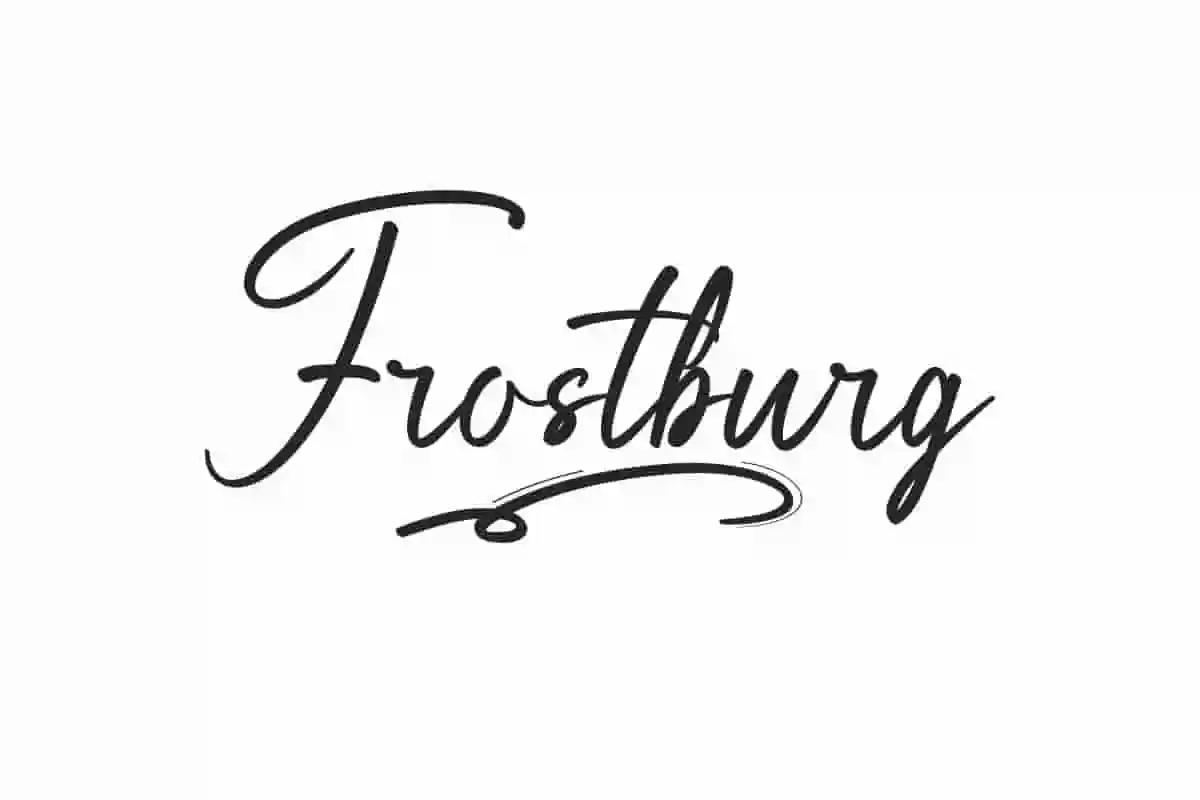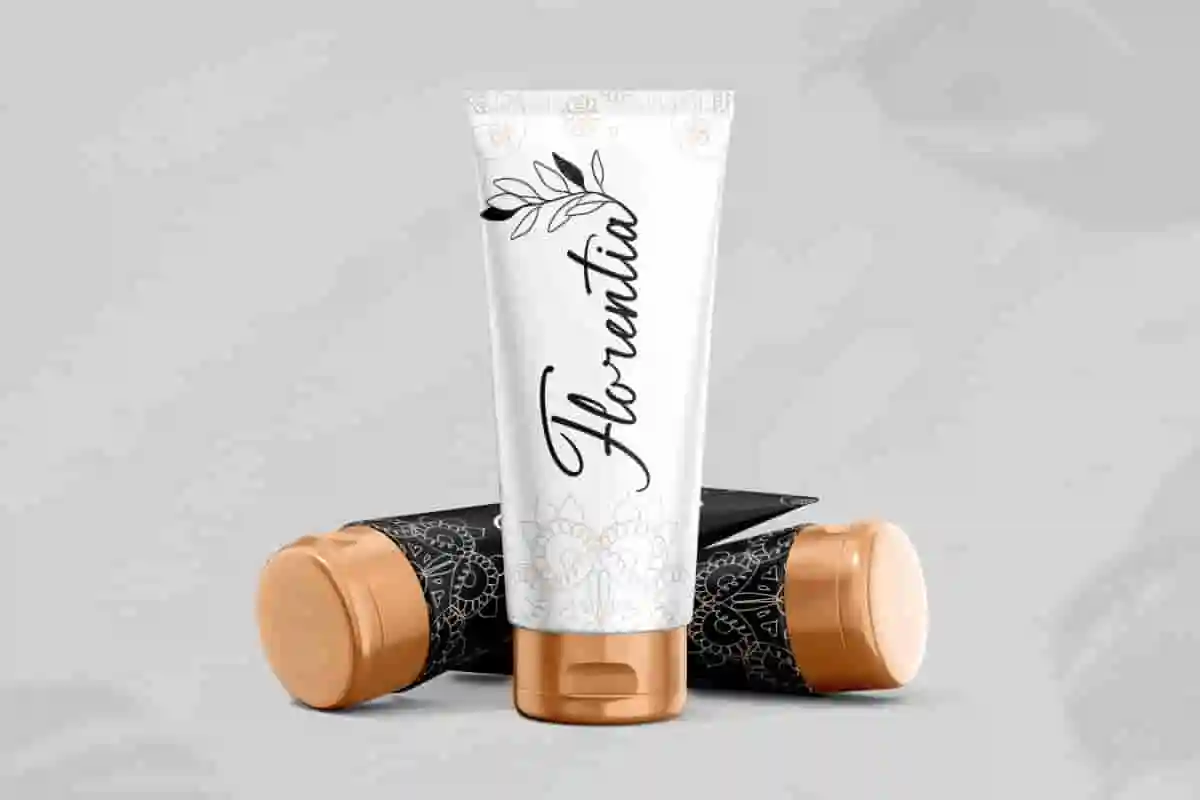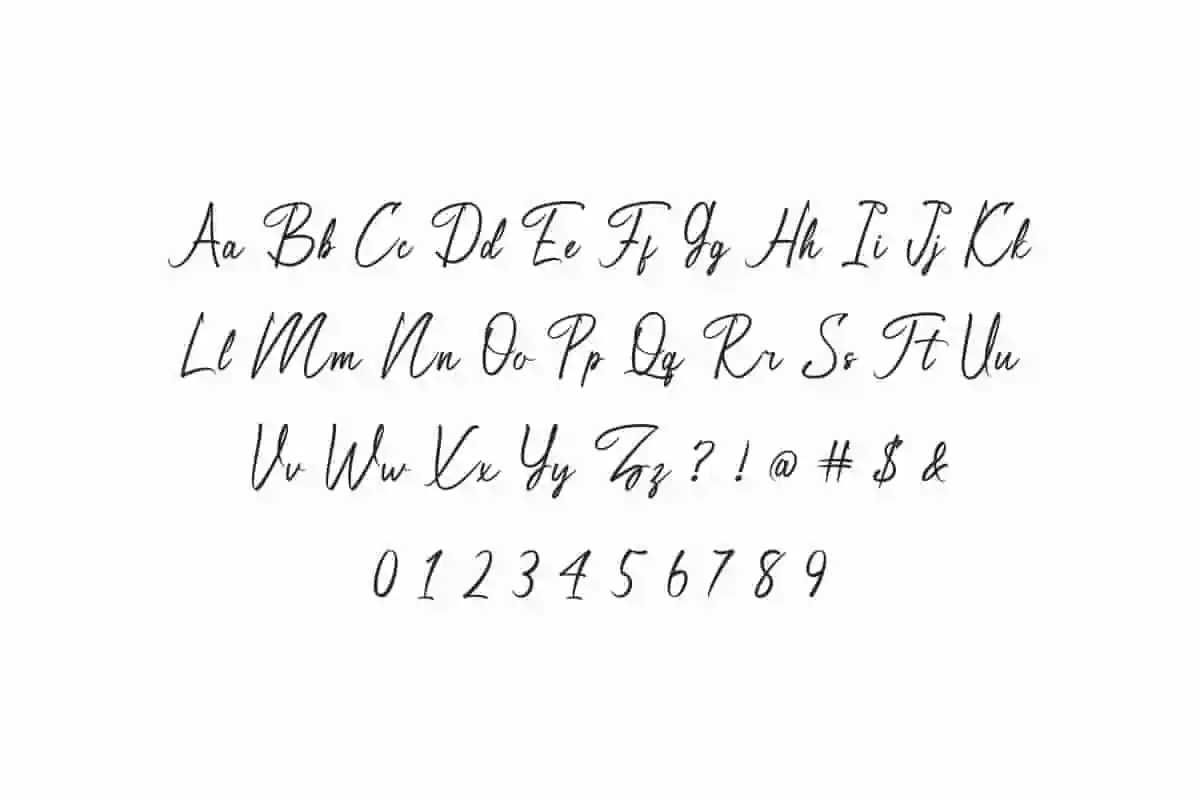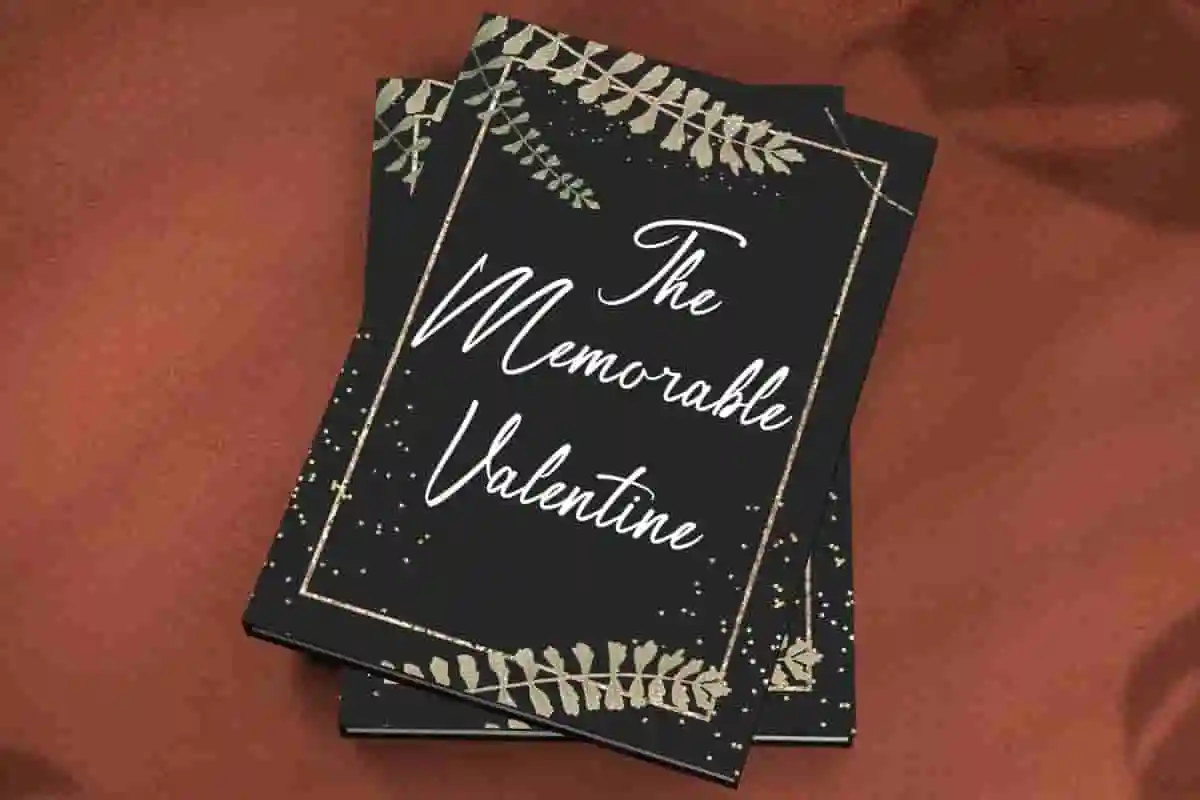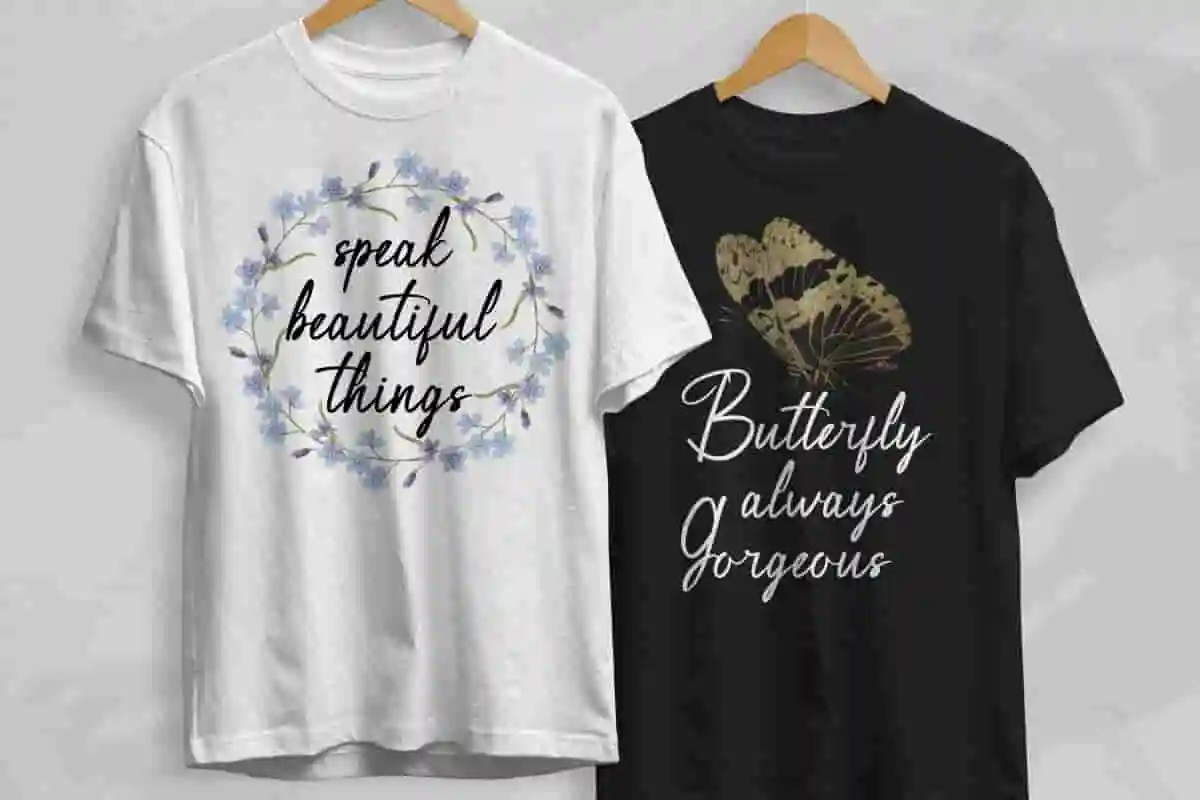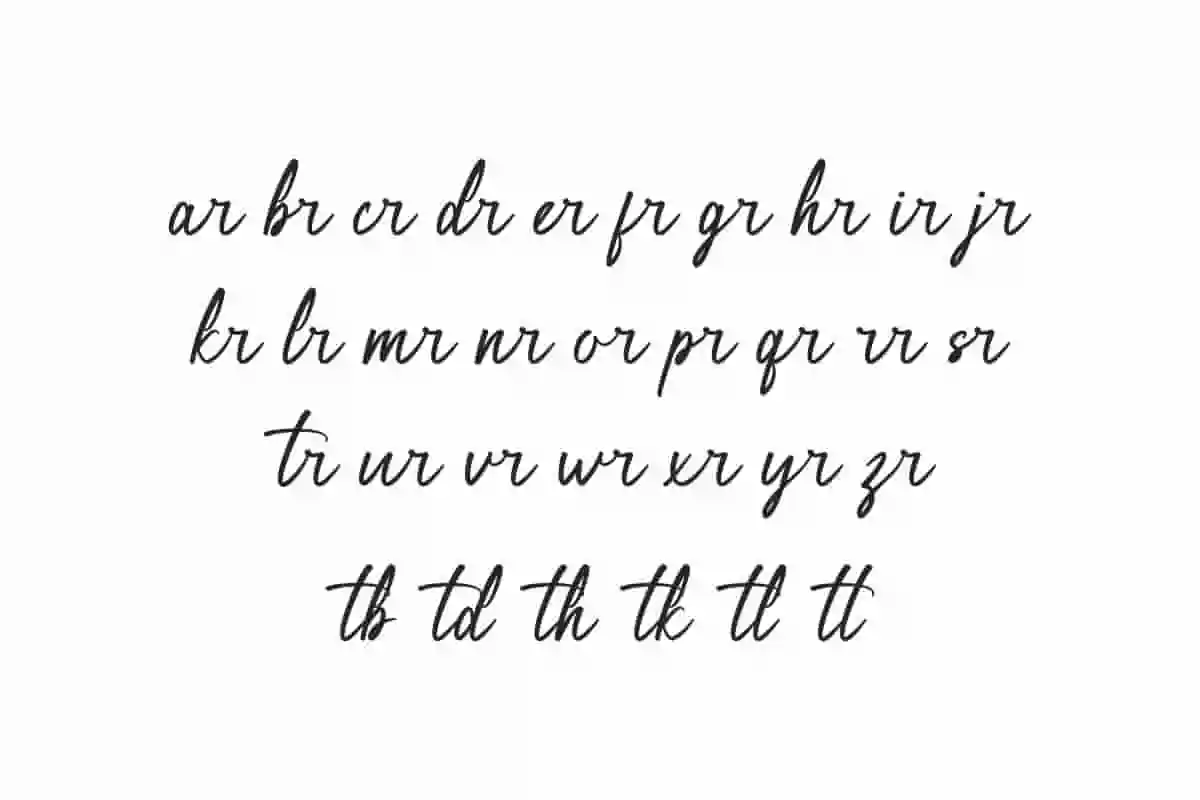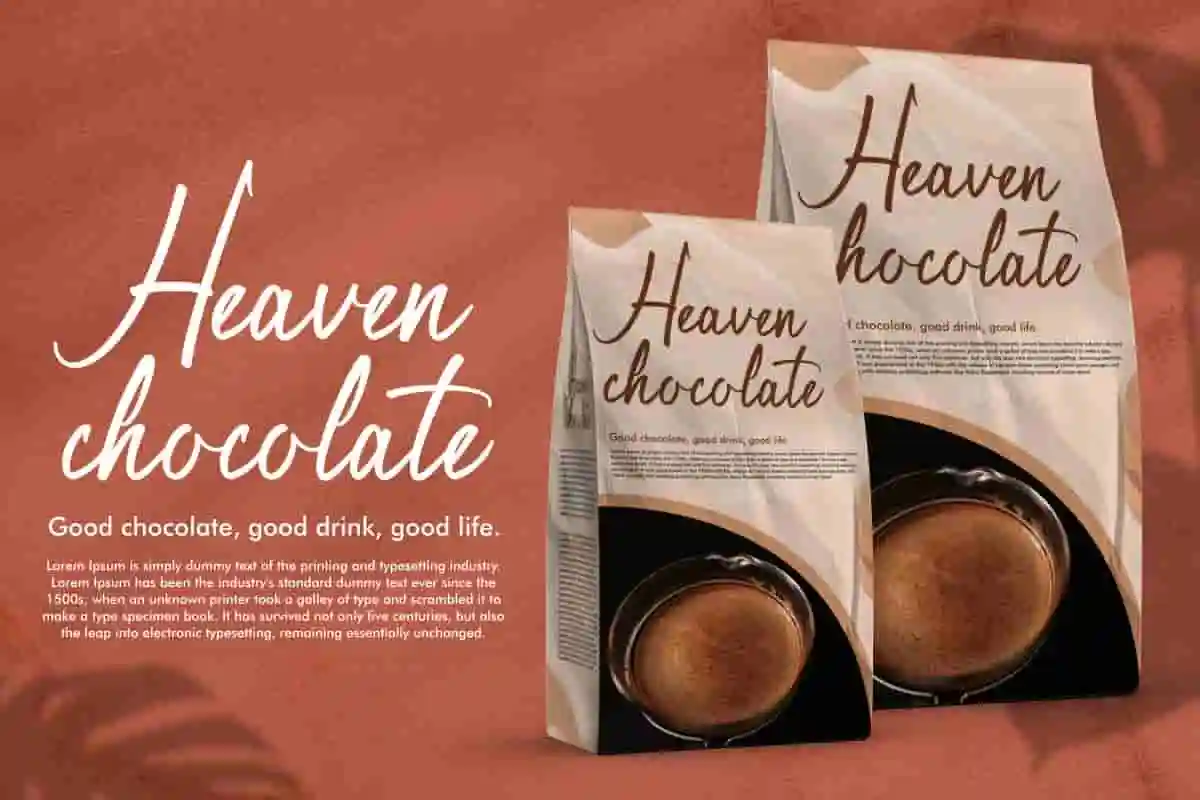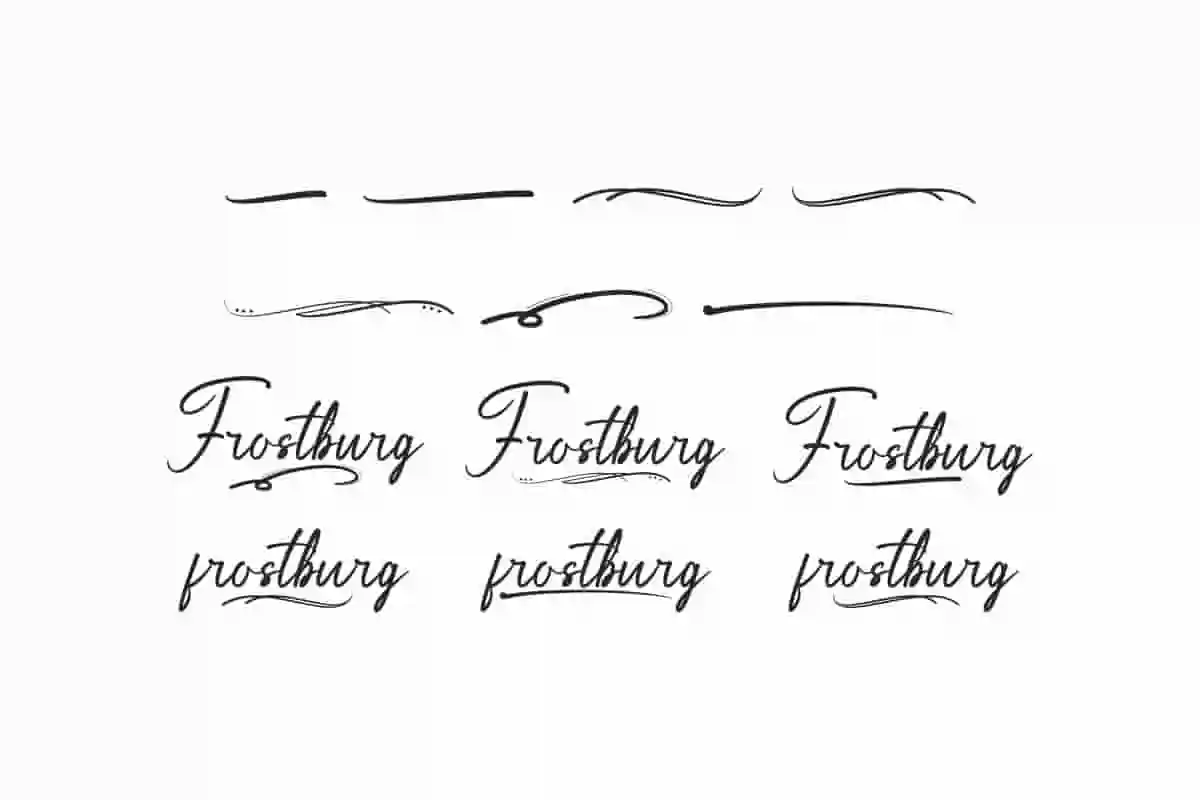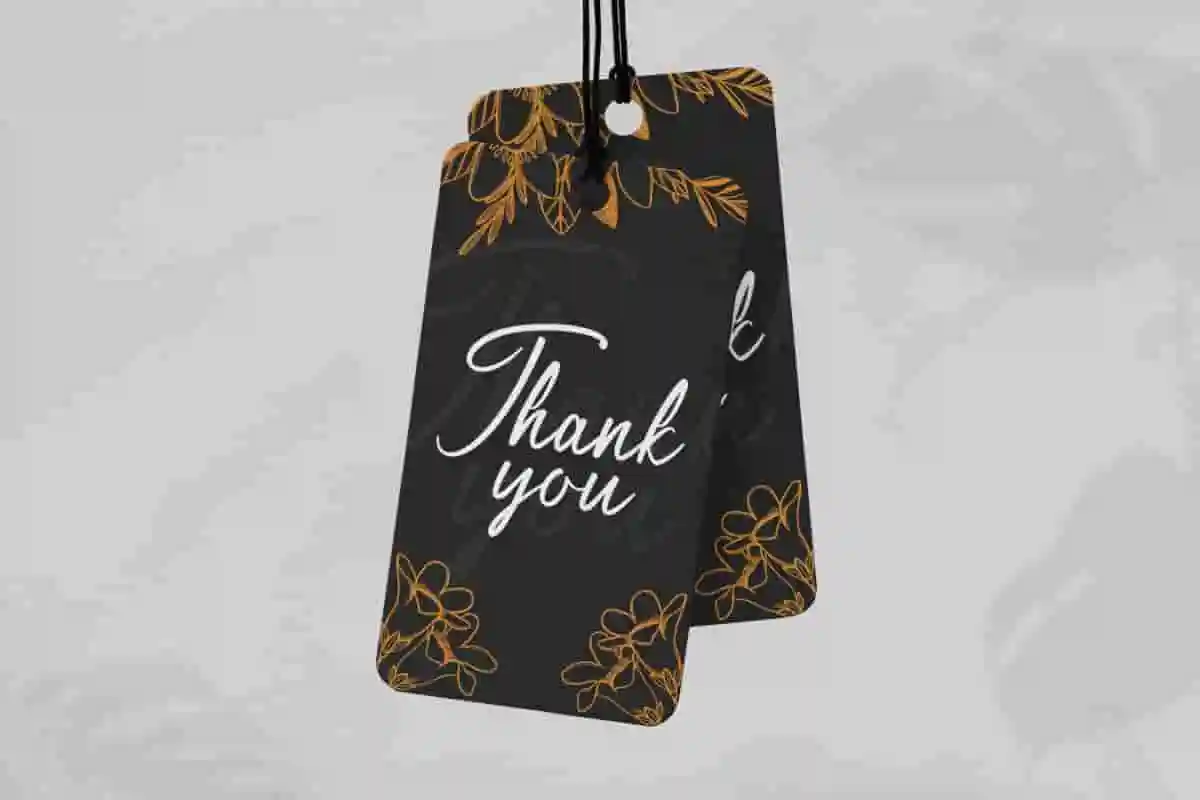
Frostburg Font is a stunning calligraphy signature font by NihStudio. Frostburg Font will be great for business, professional, video, photography etc
Frostburg Calligraphy font will be awesome for many projects (some require extended license) including : branding, logo, stationery, business card, signage, flyer, brochure etc. The theme style of the font is elegant, handmade, old, casual, vintage, stylish, sophisticated and classic brush style. The font will be match for this typeface: wedding, events, real estate, architect, law firm, florist, gardening, makeup artist, travel, hotel, musician etc